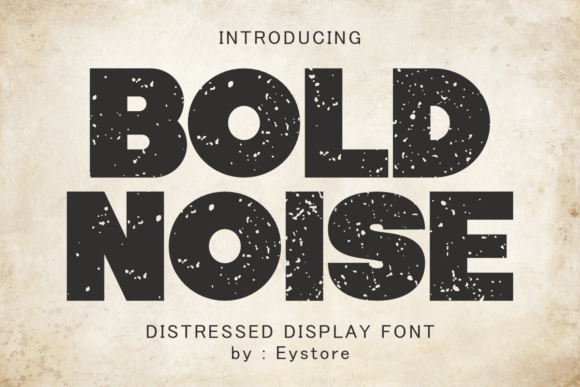
The Perfect Storm of Typography: Introducing Bold Noise Font
Have you ever been stuck in a creative rut, desperately searching for that one element to elevate your design from ordinary to extraordinary? You know, that one font that screams ‘I’m here, I’m loud, and I’m unapologetic’? For designers who crave that raw energy and bold personality in their typography, we’ve got the solution: Bold Noise Font.
This chunky, distressed display font is the perfect storm of vintage texture and modern edge, designed to add authentic character to any composition. With its rugged yet stylish look, Bold Noise Font is ideal for creatives who want to make a statement with their typography. Whether you’re designing edgy branding, vintage-inspired layouts, or trendy apparel, this font delivers a powerful personality that’s sure to grab attention.
Bold Noise Font Key Features
- Size and Resolution: Designed to be scalable, the Bold Noise Font can be used at various sizes and resolutions, from small text to large display typography, without compromising its legibility or aesthetic appeal.
- Unique Characteristics: The Bold Noise Font features a distinctive, hand-drawn look with bold lines and subtle texture, creating a visually striking effect that sets it apart from other fonts.
- Line Spacing and Kerning: The font is optimized for line spacing and kerning, ensuring that text is easy to read and visually appealing, even at smaller font sizes.
- Language Support: The Bold Noise Font includes comprehensive language support, covering a wide range of languages and scripts, making it an excellent choice for global branding and design projects.
- Customization Options: The font is highly customizable, allowing designers to adjust the weight, width, and other parameters to suit their specific design needs.
Review of Bold Noise Font
Overall, I think the Bold Noise Font has some great qualities, but it’s not perfect. ✨ The bold, dynamic feel of this font is infectious, and it’s perfect for headlines or titles where you want to grab attention. It’s also great for creating a sense of energy and movement, which is perfect for action-packed websites or social media campaigns.
One of the things I love about Bold Noise is its versatility. ✨ It comes in a range of weights and styles, from light to extra-bold, so you can customize it to fit your needs. It’s also highly legible, even at smaller font sizes, which is a major plus.
- ⚠️ Limited use in body text: While Bold Noise is great for headlines, it can be overwhelming when used extensively in body text. It’s best to reserve it for key phrases or titles.
- ⚠️ Not suitable for all audiences: The bold, dynamic feel of this font may not be suitable for all audiences, particularly those who prefer a more subtle or traditional font.
Overall, I think the Bold Noise Font is a great addition to any designer’s toolkit. It’s perfect for creating eye-catching headlines and titles, and its versatility makes it a great choice for a wide range of projects. With some careful consideration and use, it can be a real game-changer for your designs.
The Bold Noise Font is ideal for:
1. Creating eye-catching headlines and titles.
2. Adding texture and interest to your design.
3. Creating a unique and memorable brand identity.